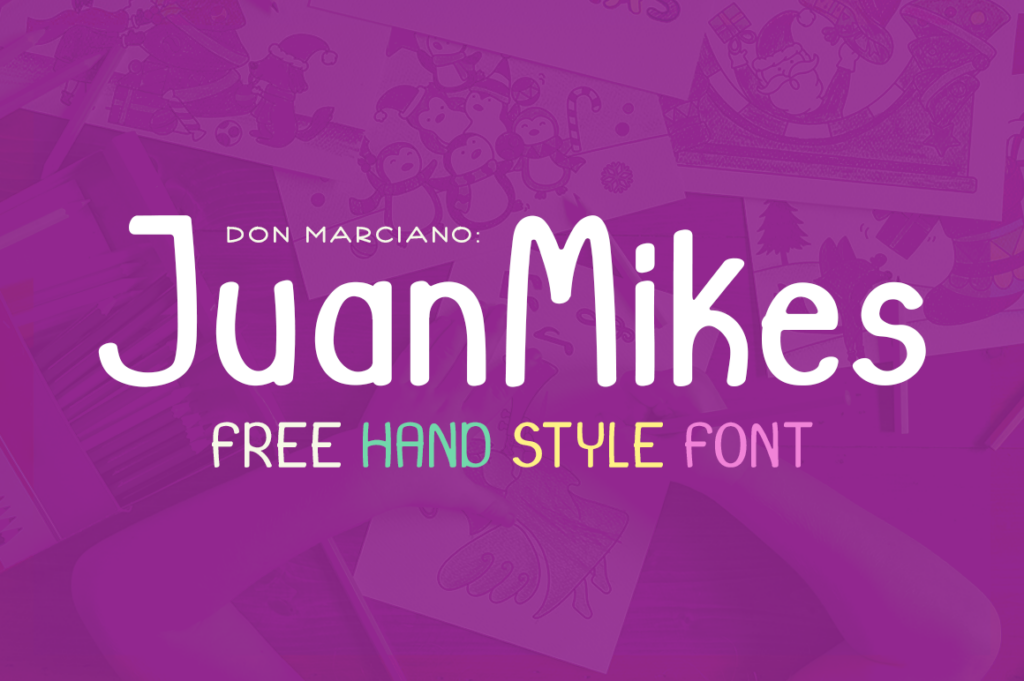
JuanMikes – A freehand inspired sans serif style font that is perfect complement for any design or illustrations with long or short texts.
JuanMikes Free Font